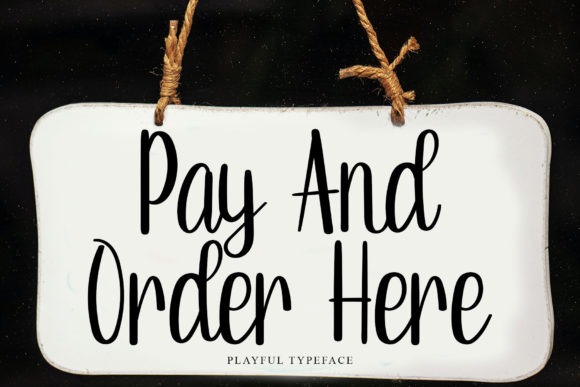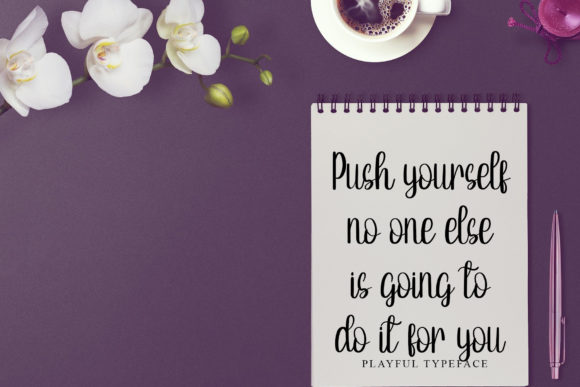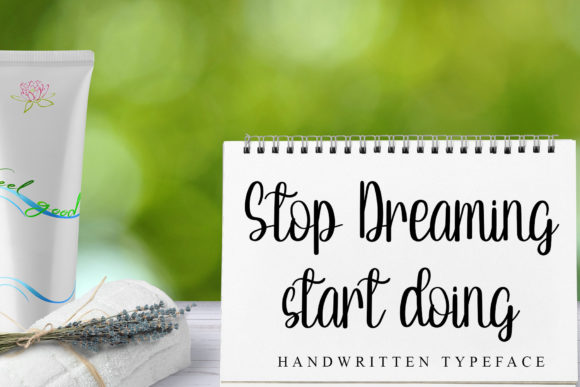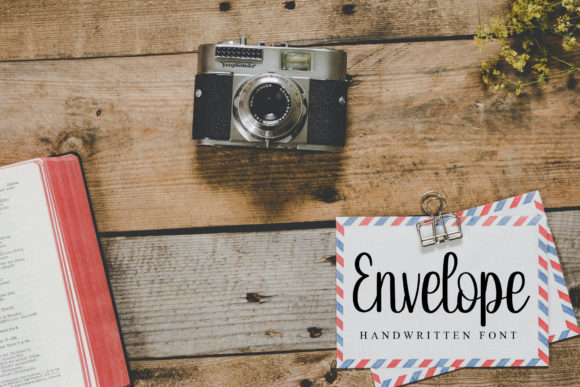
About Better Sunshine Font
Introducing Better Sunshine, an elegant and cheerful handwritten font that is sure to bring a ray of sunshine to your designs. With its slim and modern characters, this font adds a touch of sophistication and style to any project, making the words truly stand out.
Better Sunshine is designed to exude positivity and joy, reflecting its name. The sleek and flowing letterforms capture the essence of elegance while maintaining a playful and cheerful vibe. Each character is meticulously crafted to ensure clarity and readability, allowing your message to shine through.
This font is perfect for a wide range of creative projects. Whether you’re designing greeting cards, invitations, logos, quotes, social media posts, or any other type of visual communication, Better Sunshine adds a touch of elegance and charm to your words.
The slim and modern style of Better Sunshine makes it incredibly versatile. It pairs well with both bold and delicate designs, offering a beautiful contrast and adding visual interest to your compositions. The clean and streamlined characters allow for smooth legibility, even at smaller sizes.
Better Sunshine’s versatility extends beyond its visual appeal. It can be used in a variety of contexts, from personal projects to professional branding. Whether you’re creating for yourself, a client, or an audience, Better Sunshine brings an uplifting and positive energy to your designs.
So, embrace the elegance and cheerfulness of Better Sunshine and let it brighten up your creative projects. With its slim and modern characters, this font adds a touch of sophistication and joy to any design, making it stand out from the crowd.
Illuminate your words with Better Sunshine and watch as your creations come to life with a newfound sense of elegance and positivity. Let this font be a reminder that even in the darkest moments, there’s always a better sunshine waiting to shine through.